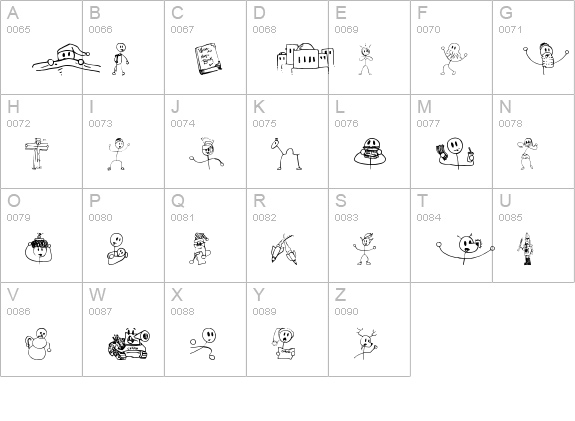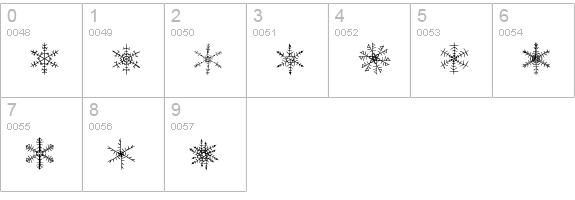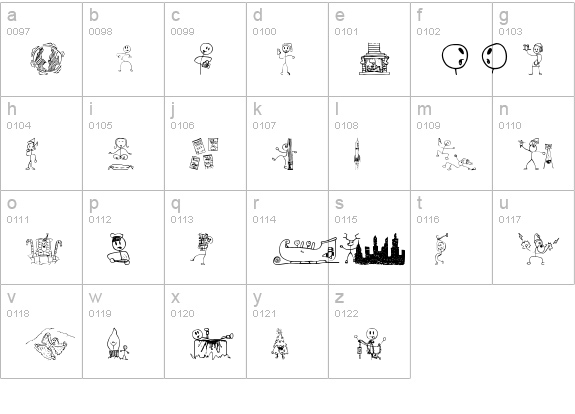
Risus LCB Kringlebats font is a whimsical and playful typeface that brings a touch of holiday cheer to your designs. With its unique and festive characters, this font is perfect for adding a joyful and lighthearted vibe to your projects. The Kringlebats font features a variety of Christmas-themed symbols and icons, making it ideal for creating greeting cards, party invitations, and other seasonal designs. Best of all, Risus LCB Kringlebats font is available for free download at FontsMarket.com. Whether you're a graphic designer, crafter, or simply looking to add a festive touch to your creations, this font is a must-have addition to your collection. Download it today and spread some holiday cheer with the delightful Kringlebats font!